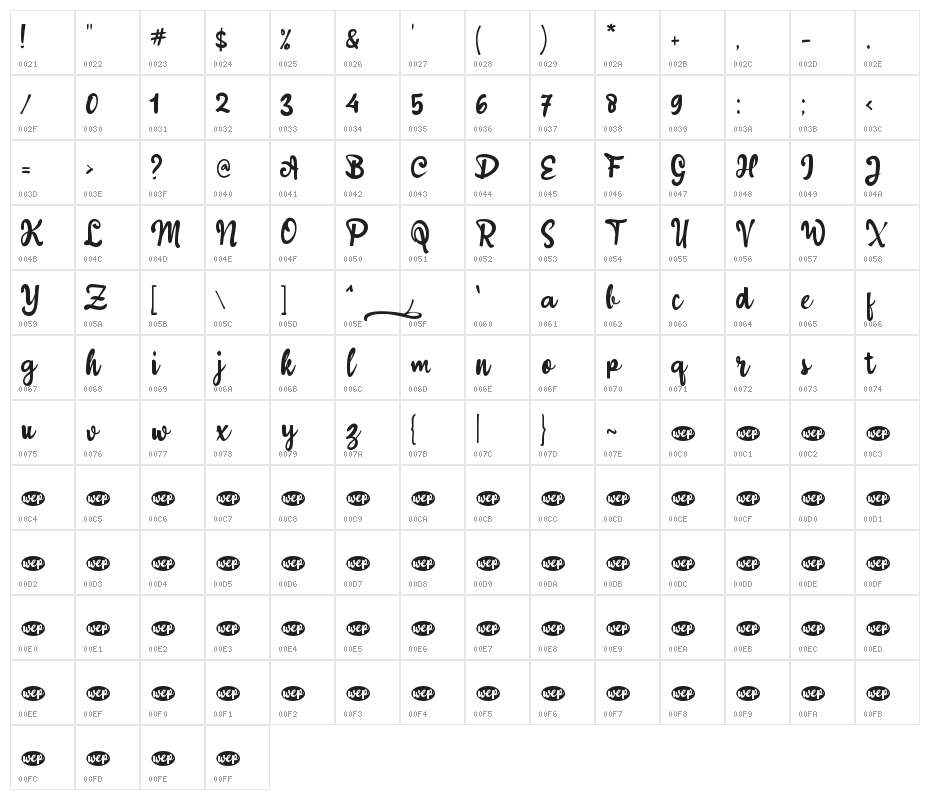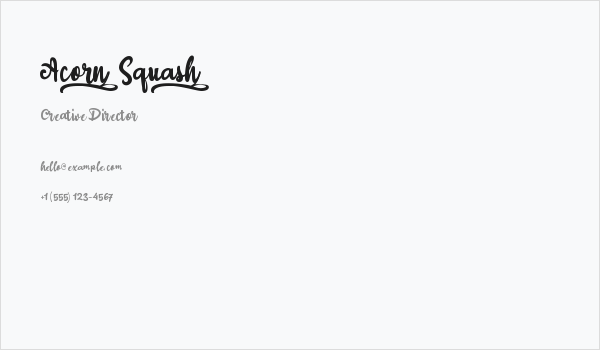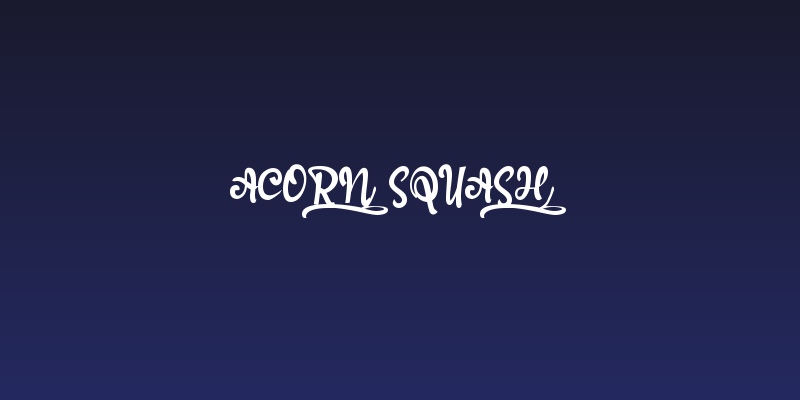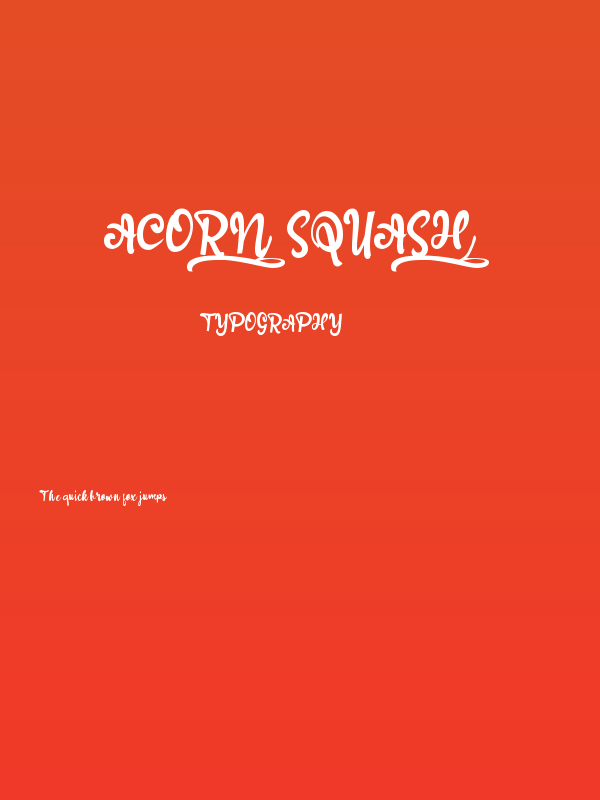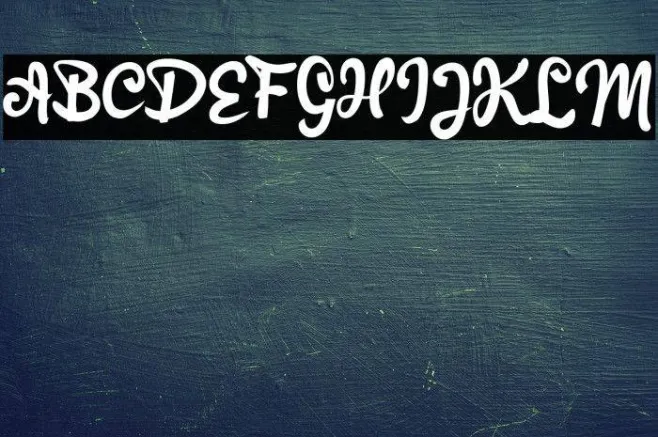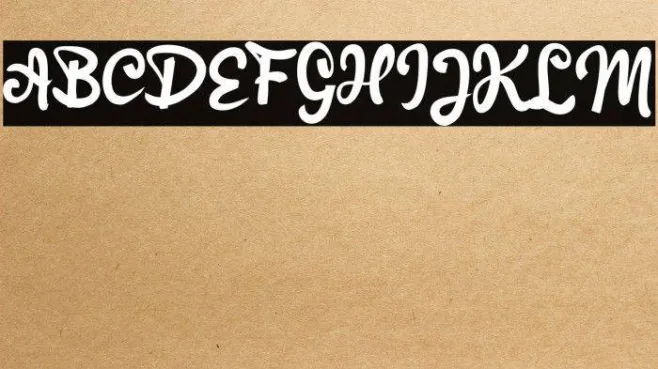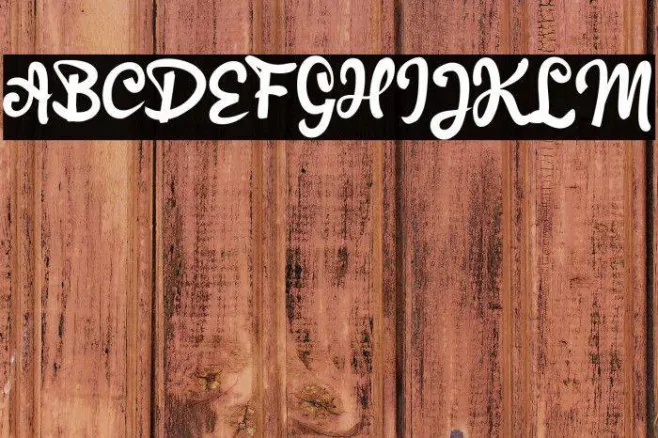
Acorn_Squash_ Font
Acorn_Squash_ Description
This font features a playful and energetic script style with a bold presence. The characters are interconnected with smooth, flowing curves, giving it a handwritten feel. The uppercase letters are slightly more structured, while the lowercase letters maintain a casual, freeform appearance. The numerals are consistent with the overall style, offering a cohesive look across all characters. Special characters are well-integrated, maintaining the font's lively and dynamic aesthetic. This font is ideal for projects that require a personal touch or a sense of whimsy.
| Overall Style | Playful, Energetic |
| Use Case | Headlines, Logos, Decorative text |
| Proposed Projects | Greeting cards, invitations, playful branding, social media graphics. |